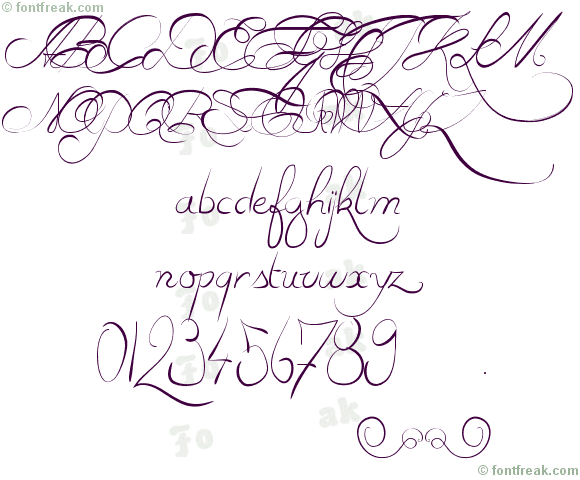
Estrela Fulguria .1748.
Estrela Fulguria .1748. by Maelle.K is a captivating display font that effortlessly combines elegance with a touch of whimsy. This font belongs to the decorative category, characterized by its flowing lines and graceful curves. The strokes exhibit a medium weight, offering a delightful contrast between thicker and thinner sections, which adds a dynamic flair to any design. The spacing is thoughtfully balanced, ensuring readability while maintaining an artistic feel. The playful loops and flourishes present in the characters enhance its decorative appeal, making it an eye-catching choice for various applications.
This font is particularly well-suited for wedding invitations, where its romantic and sophisticated style can beautifully convey heartfelt messages. It shines in creative projects such as movie posters, adding an artistic touch that can evoke emotion and intrigue. Restaurant menus will benefit from its unique charm, drawing customers in with an inviting aesthetic. Additionally, Estrela Fulguria .1748. is perfect for branding and logo design, allowing small business owners to create a memorable identity that stands out in a competitive market.
Targeted towards graphic designers, small business owners, and content creators, this font brings an artistic quality that can elevate any project. Its versatility and distinctive style make it an asset for anyone looking to add a personal touch to their work.
In conclusion, Estrela Fulguria .1748. font free download is a standout choice for those seeking a decorative typeface that combines elegance with creativity. Its unique characteristics make it a valuable tool for a variety of design needs, ensuring that your projects leave a lasting impression. Whether you’re crafting invitations, promotional materials, or branding elements, this font will undoubtedly enhance your creative vision.